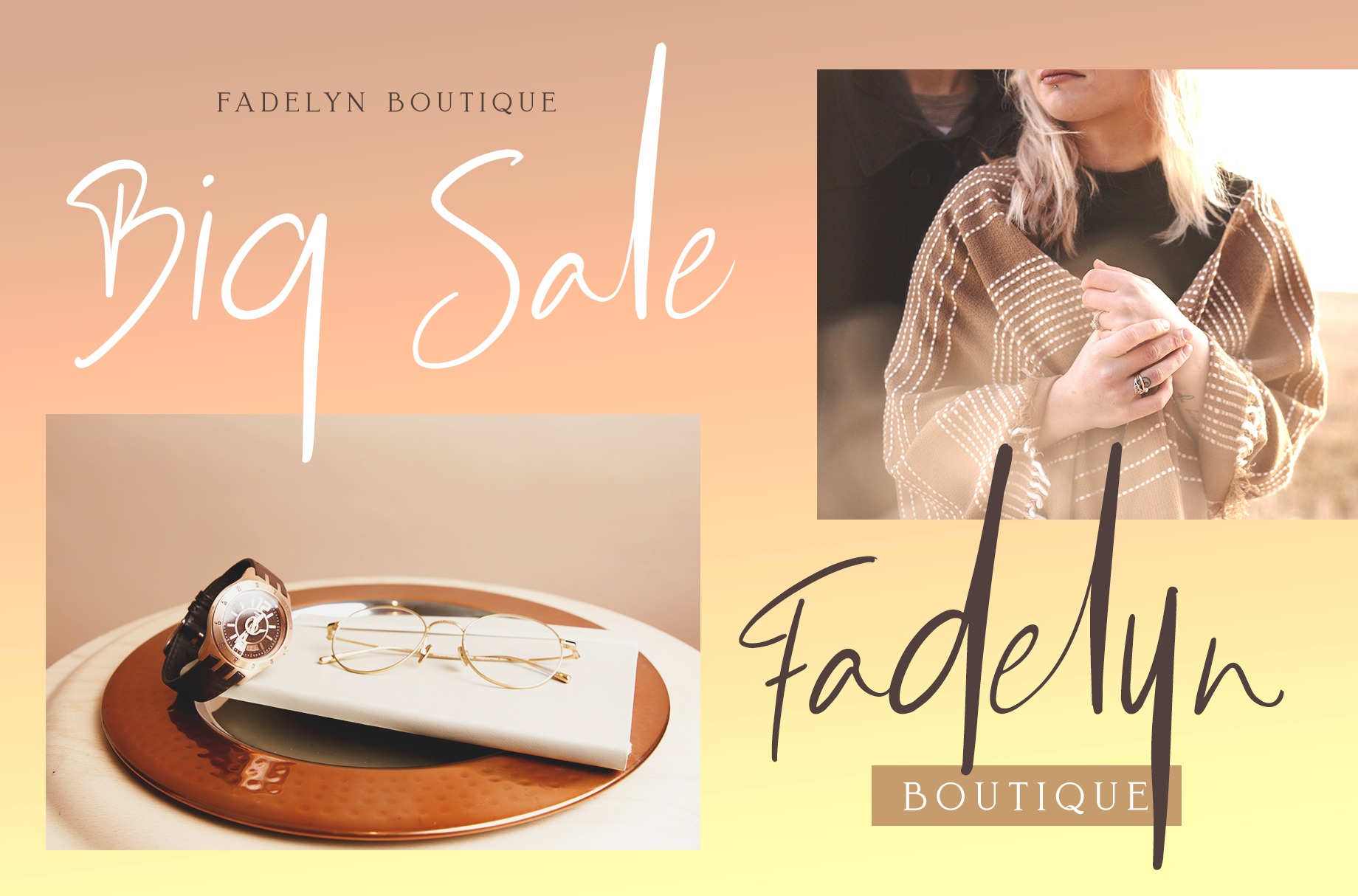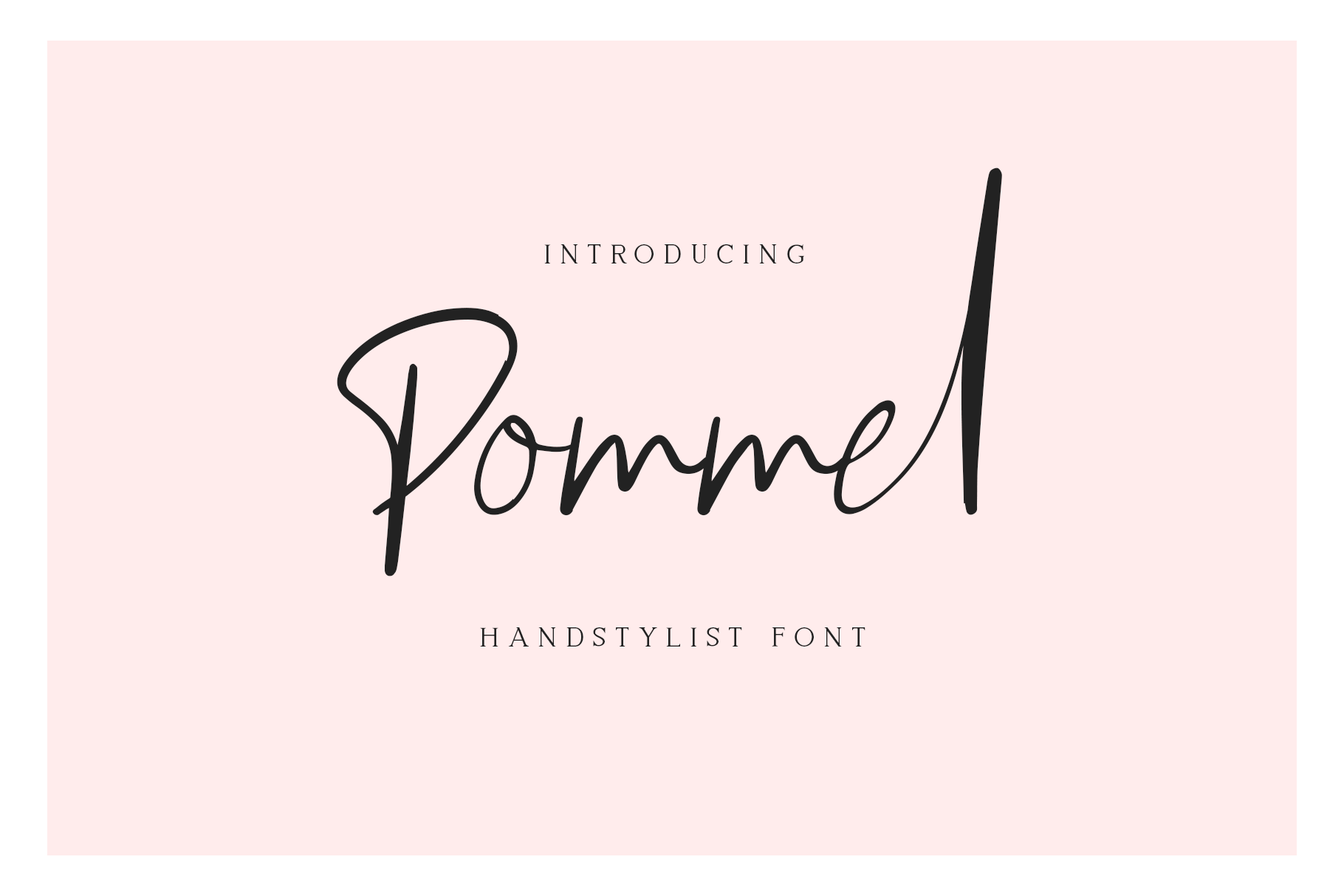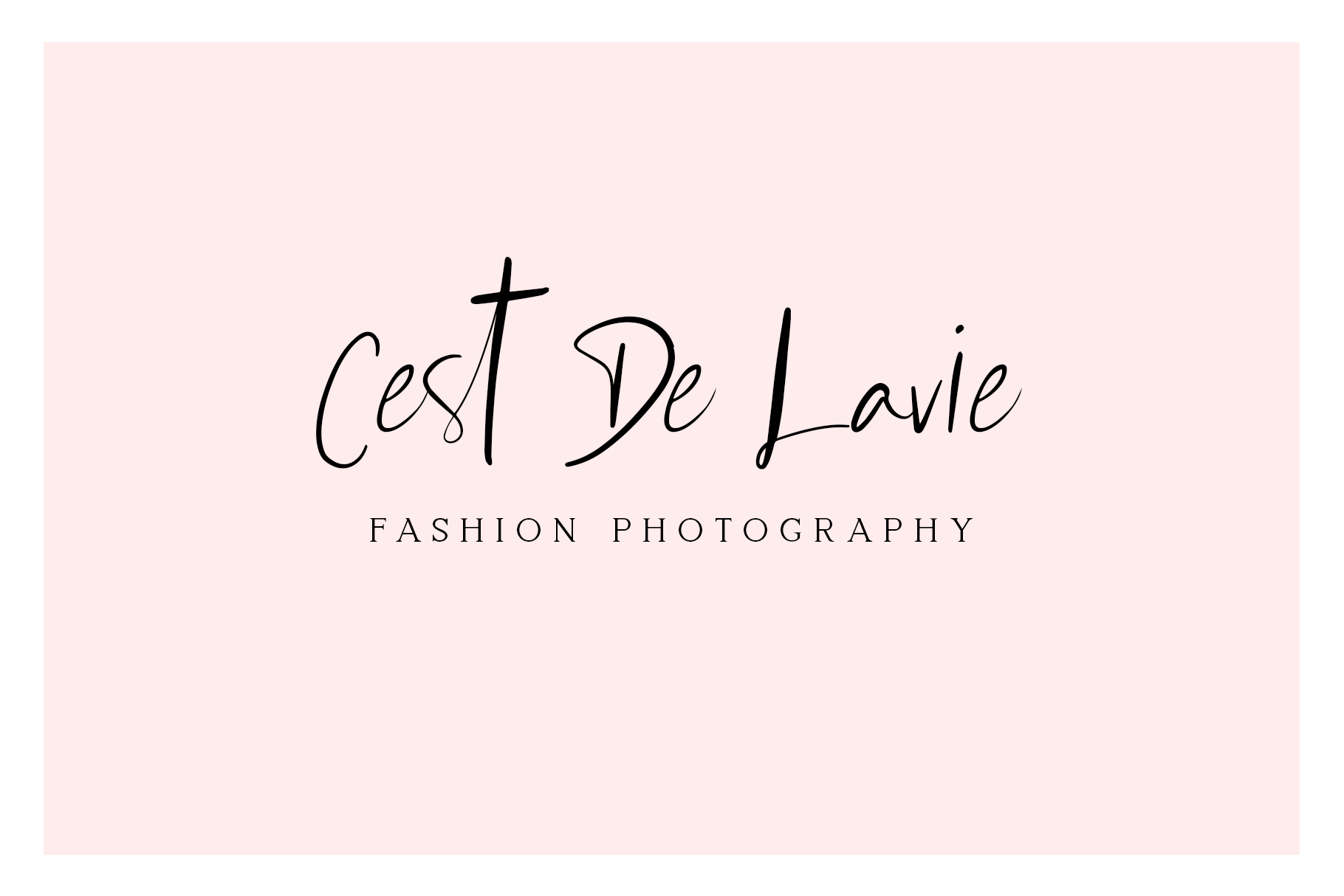
Introduction to Pommel Font
Do you remember the feeling of doodling in your notebook as a child? The way your pen glided across the page, creating unique characters and lines that told a story? As a designer, you understand the value of handcrafted elements in bringing a project to life. That’s why the Pommel Font is a game-changer – it’s a high-quality, handwritten font that captures the essence of real handwriting.
With its upscale, chic look, the Pommel Font is perfect for designers who want to elevate their creative projects. Whether you’re working on a fashion or apparel brand, an e-commerce website, or a wedding boutique, this font is sure to make your design stand out. Plus, it’s free to download, making it an invaluable resource for designers on a budget.
What sets the Pommel Font apart is its ability to add a personal touch to your design. Its transparent background allows it to blend seamlessly with any background, while its high-quality design makes it perfect for print and digital projects. Whether you’re working on a small design project or a large-scale campaign, the Pommel Font is a valuable asset to have in your design arsenal.
Pommel Font
- Perfect for designers looking for a unique and versatile font
Honest Review: Pommel Font
I recently stumbled upon the Pommel Font, and I’m excited to share my thoughts on this design resource. The Pommel Font is a great addition to any creative project that requires a unique and stylish font.
- The font may not be suitable for all types of projects, as it’s more geared towards creative and artistic applications.
Overall, I’m impressed with the Pommel Font. It’s a high-quality design resource that can add a unique touch to any creative project. With its transparent background feature and free download option, it’s definitely worth checking out. Whether you’re a seasoned designer or just starting out, the Pommel Font is a great addition to your design toolbox.
Pommel Font
The Pommel Font is ideal for use in various creative projects, including:
- Logo creation
- Typography